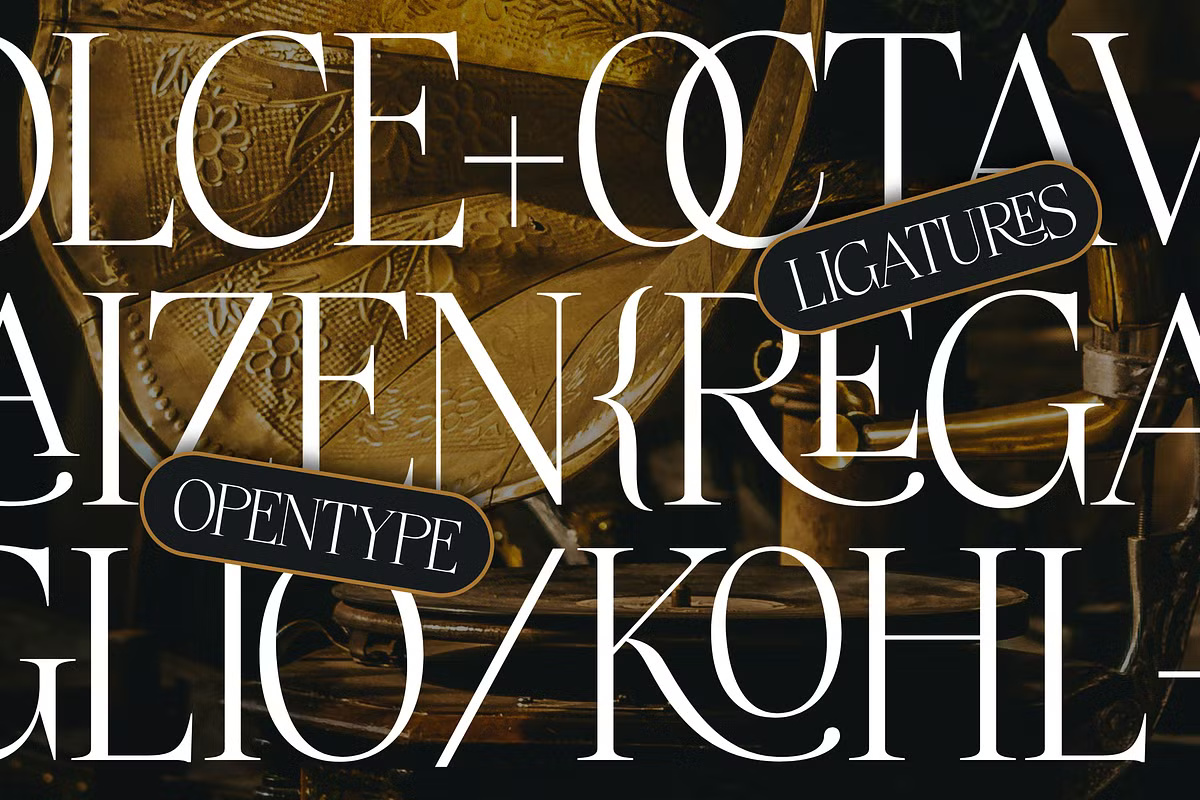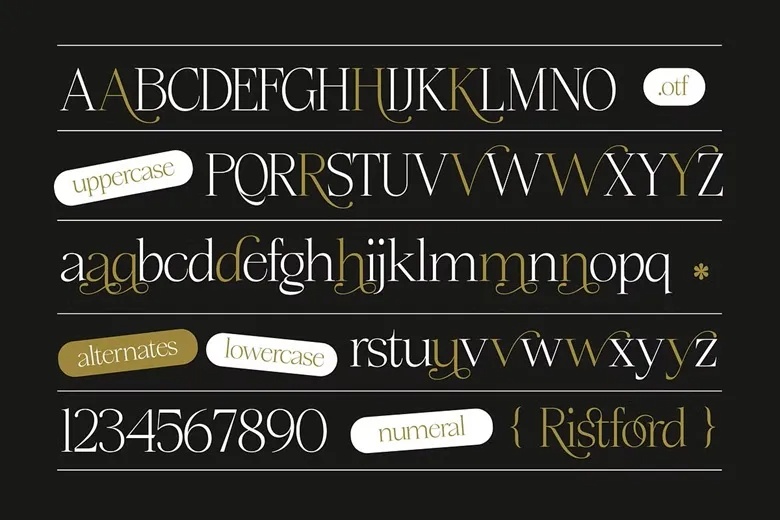
Ristford Font
Ristford is a new luxury serif typeface featuring elegant letterforms that blend timeless sophistication with a modern, 90s-inspired retro flair. Its stylish design captures attention effortlessly, making it the perfect choice to elevate your promotions and creative projects.
With its refined curves and contemporary aesthetic, Ristford brings your branding to life with a distinctive touch of class. Ideal for headlines, titles, branding, logo design, packaging, magazine layouts, advertising, social media graphics, and both short and long-form text.